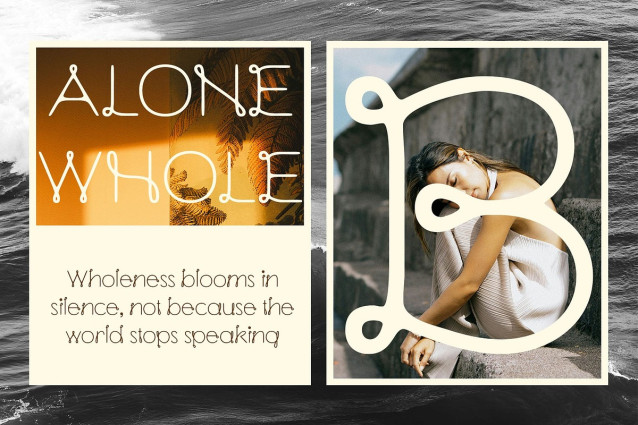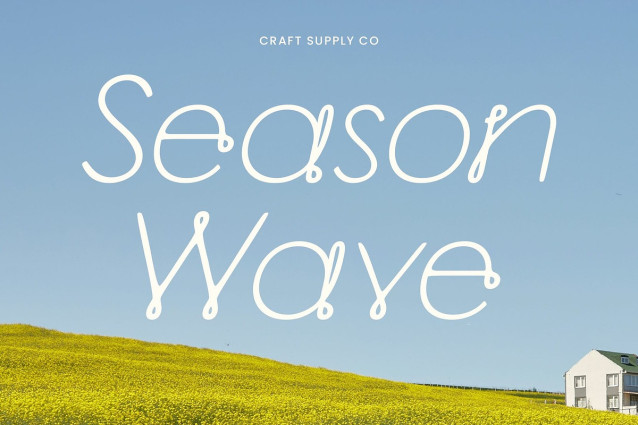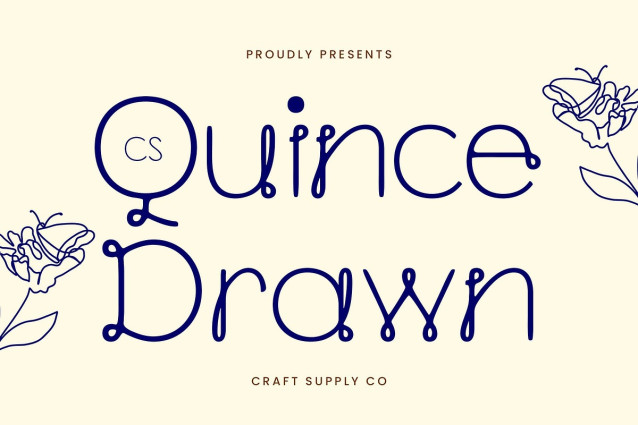
CS Quince Drawn Font
CS Quince Drawn Font is a modern display font that radiates joy through its playful, rounded shapes and approachable personality. The soft, bouncy curves and vibrant proportions give it a lively presence that instantly captures attention. Whether used in headlines or standout graphics, it brings a touch of happiness and character to any design.
Hand-Drawn Style for Artistic Expression What sets this modern display font apart is its expressive drawn effect. This handcrafted texture adds warmth, movement, and a unique artistic flair to each letterform, making the font feel personal and full of life. It bridges the gap between structure and spontaneity—ideal for creative projects that aim to feel both polished and human.
Perfect for Joyful and Youthful Designs Tailored for children’s content, playful product branding, event posters, and cheerful campaigns, this display font is a go-to font for anything that seeks to convey fun, creativity, and youthful energy. It’s particularly well-suited for toys, kids’ books, packaging, and party invitations, where light-heartedness is key.
Versatile Across Creative Applications Despite its playful nature, the font is highly versatile and adapts well to various artistic contexts. From colorful visuals and creative identities to expressive editorials and social media content, this cute font adds an uplifting tone that enhances storytelling and visual impact.